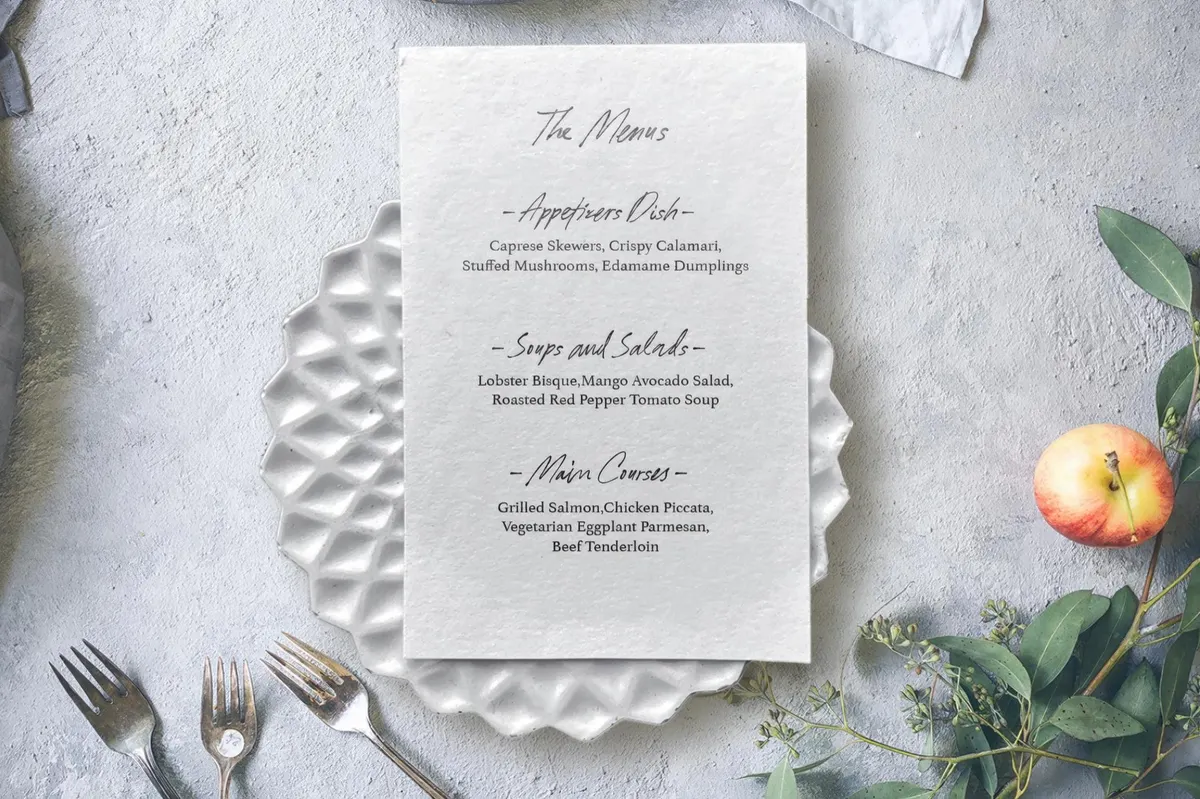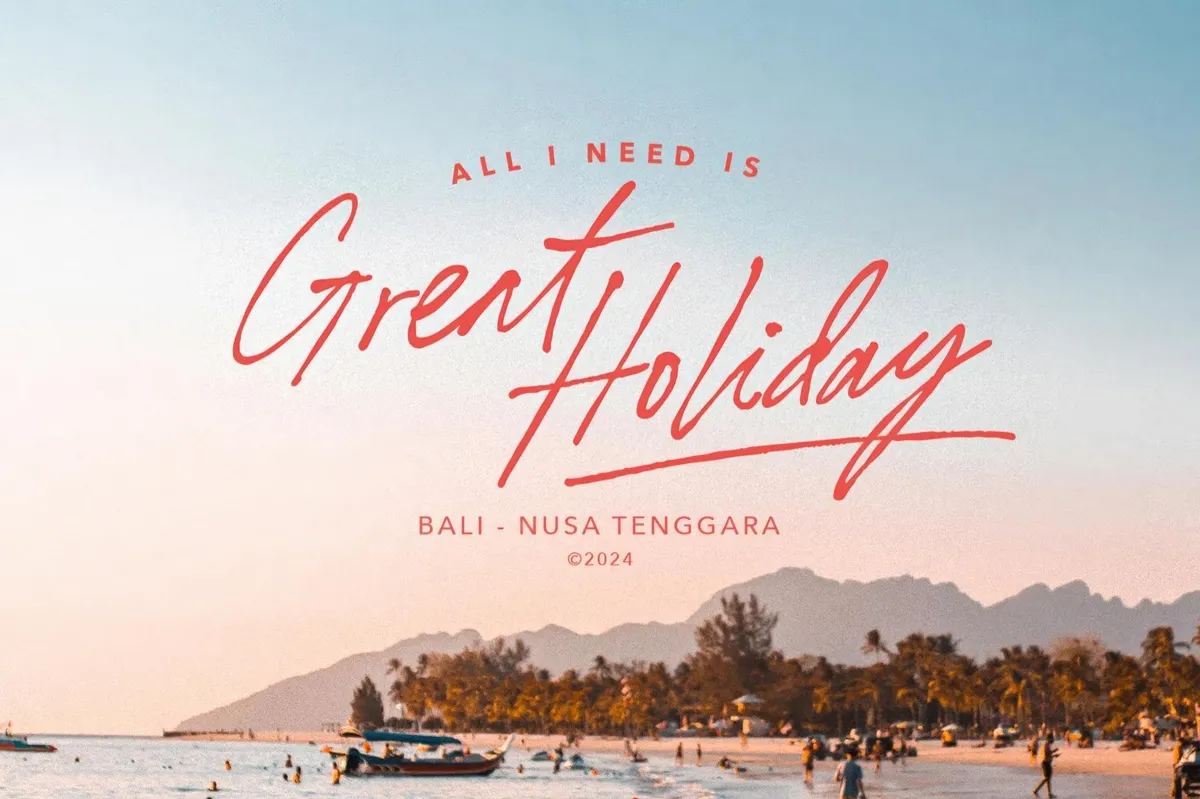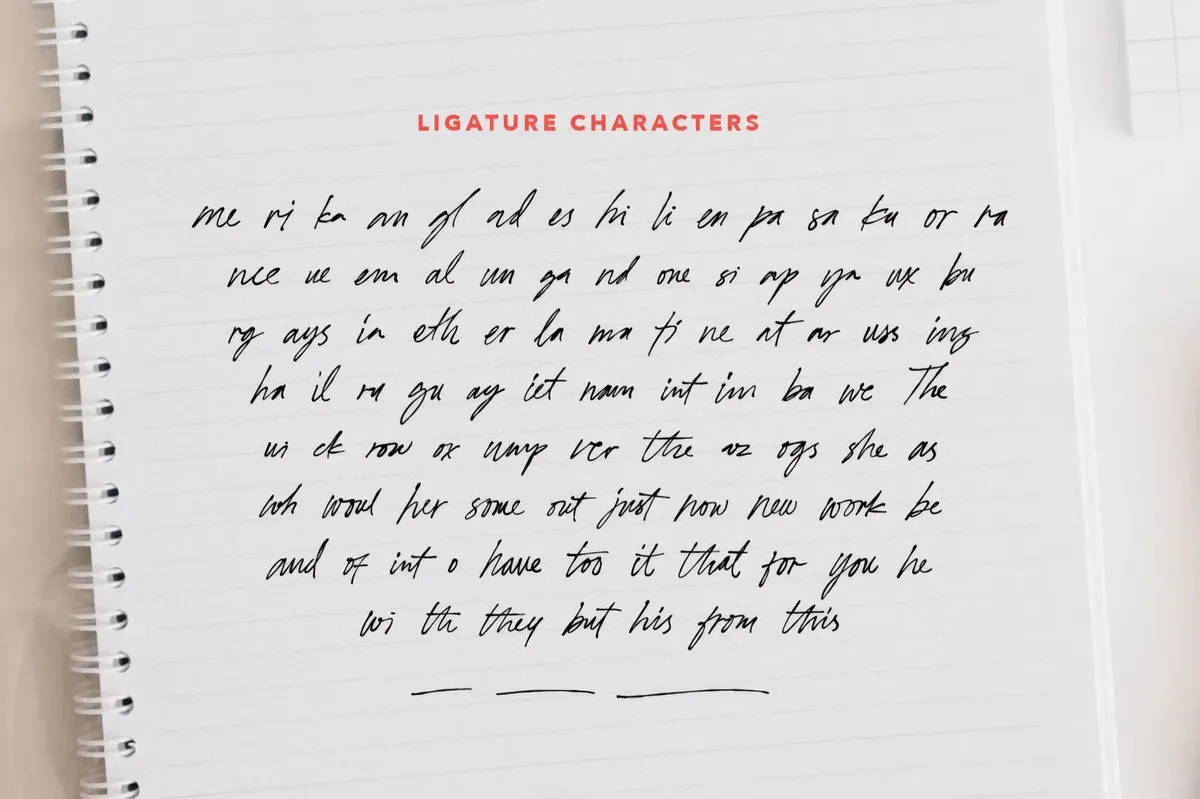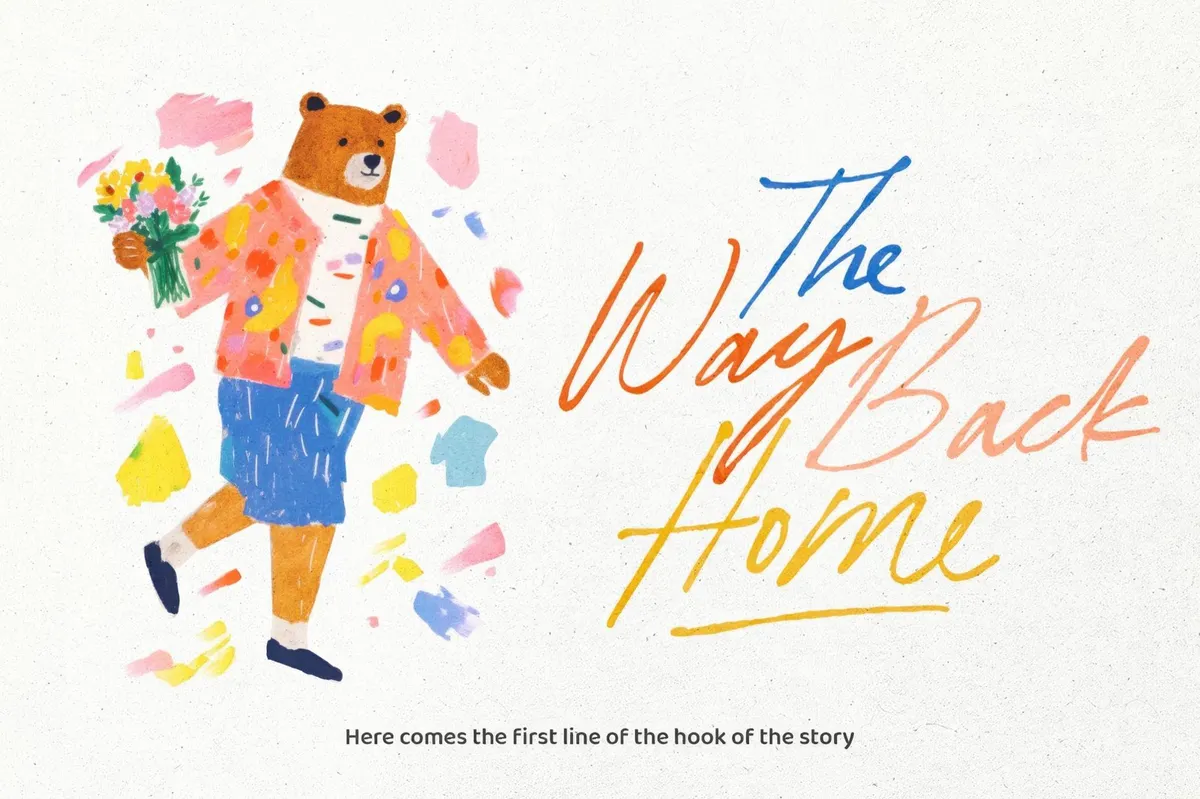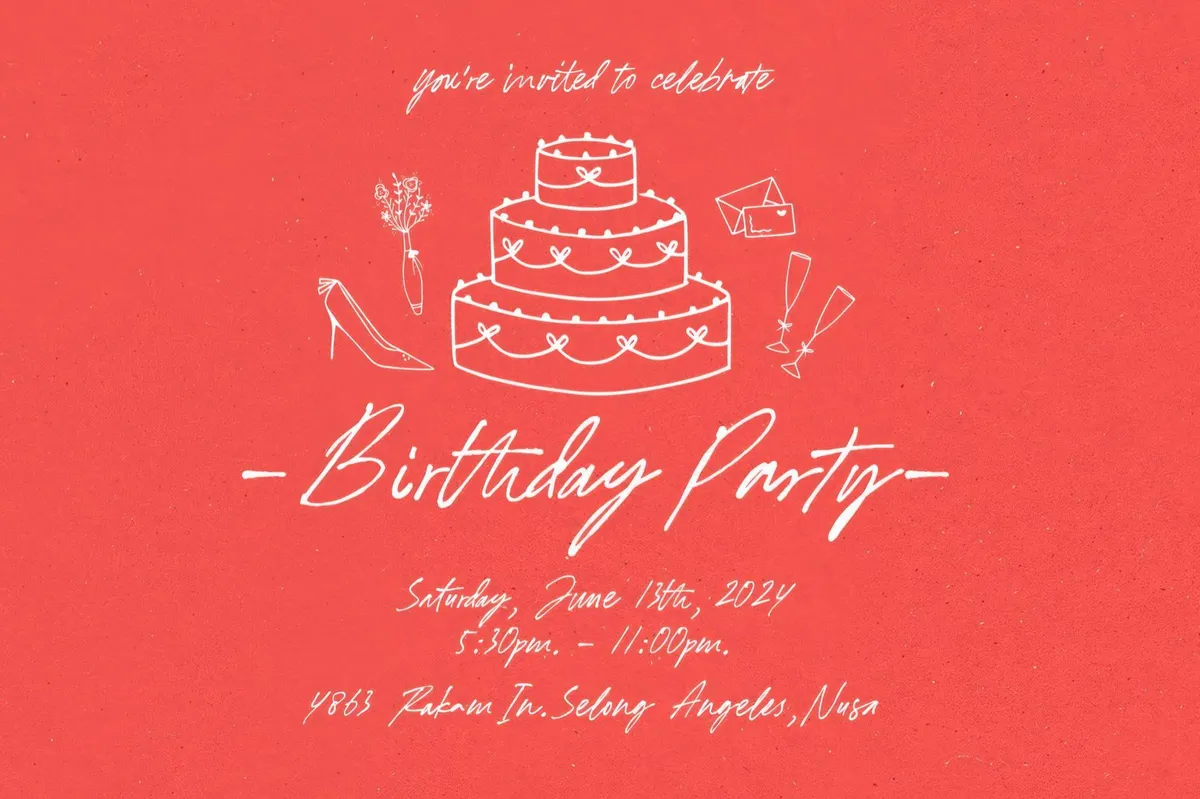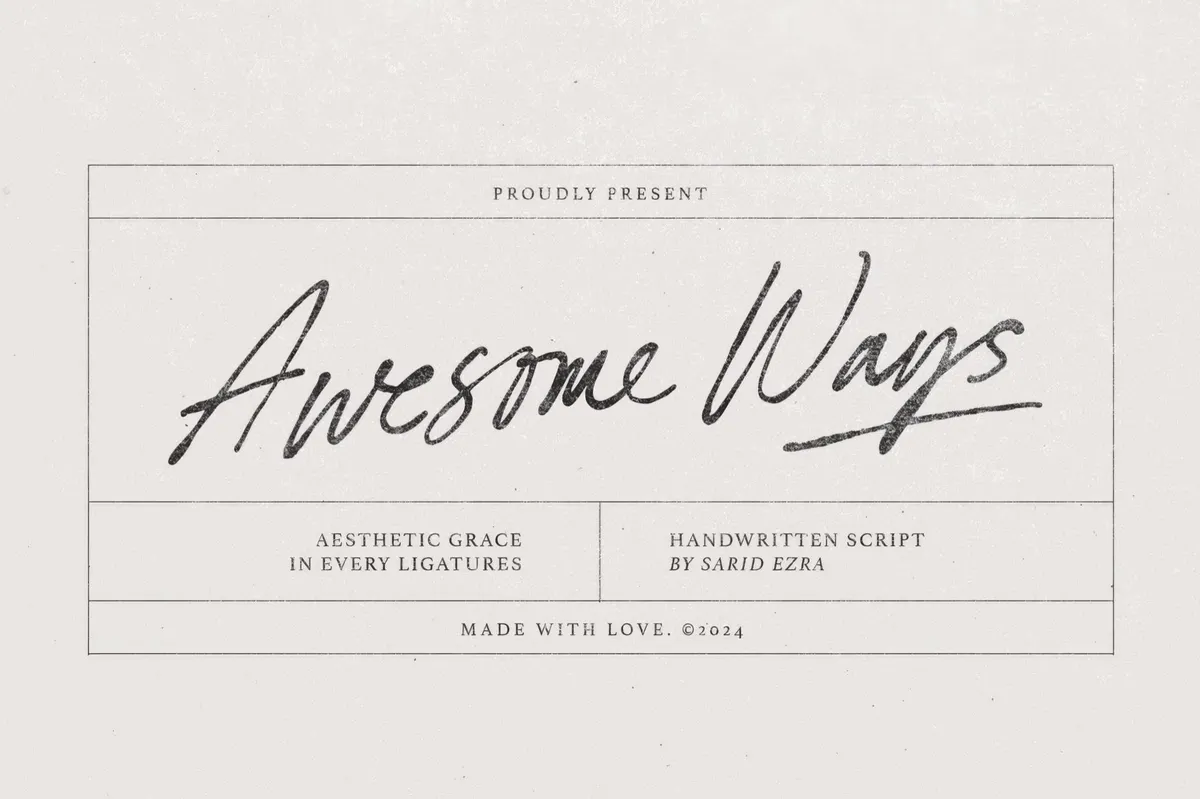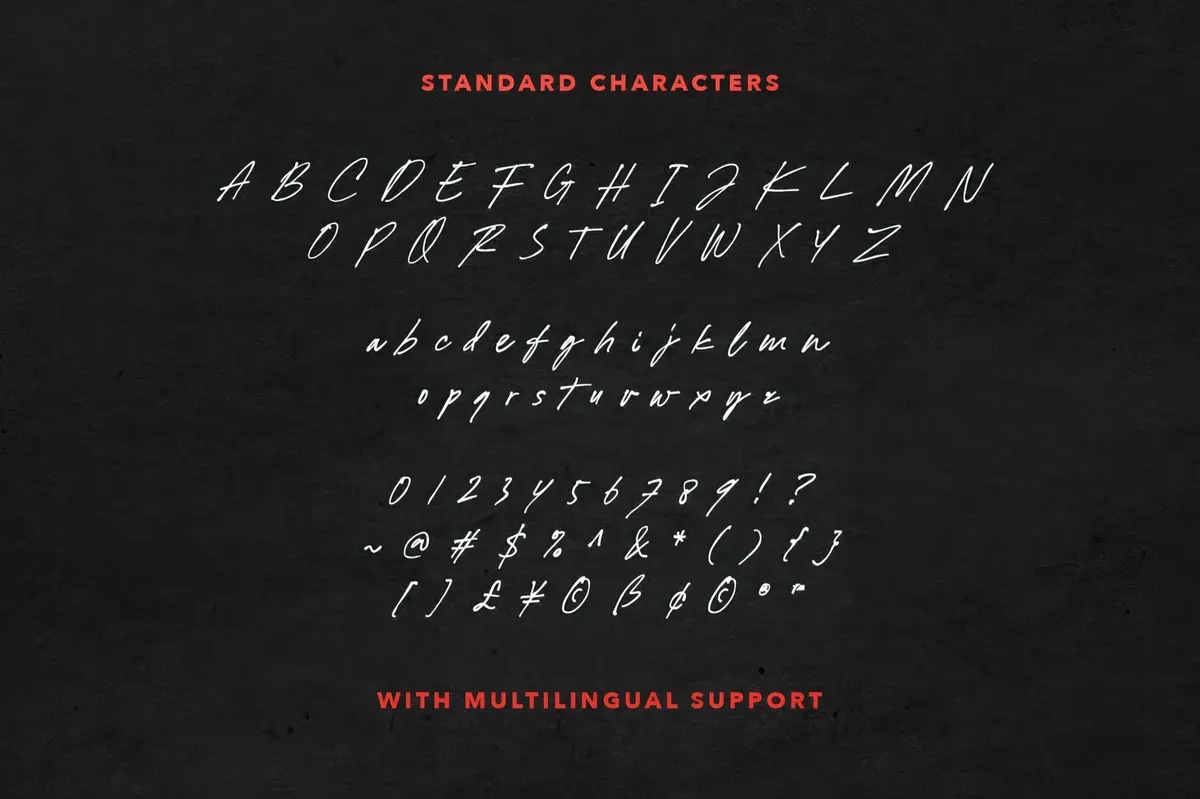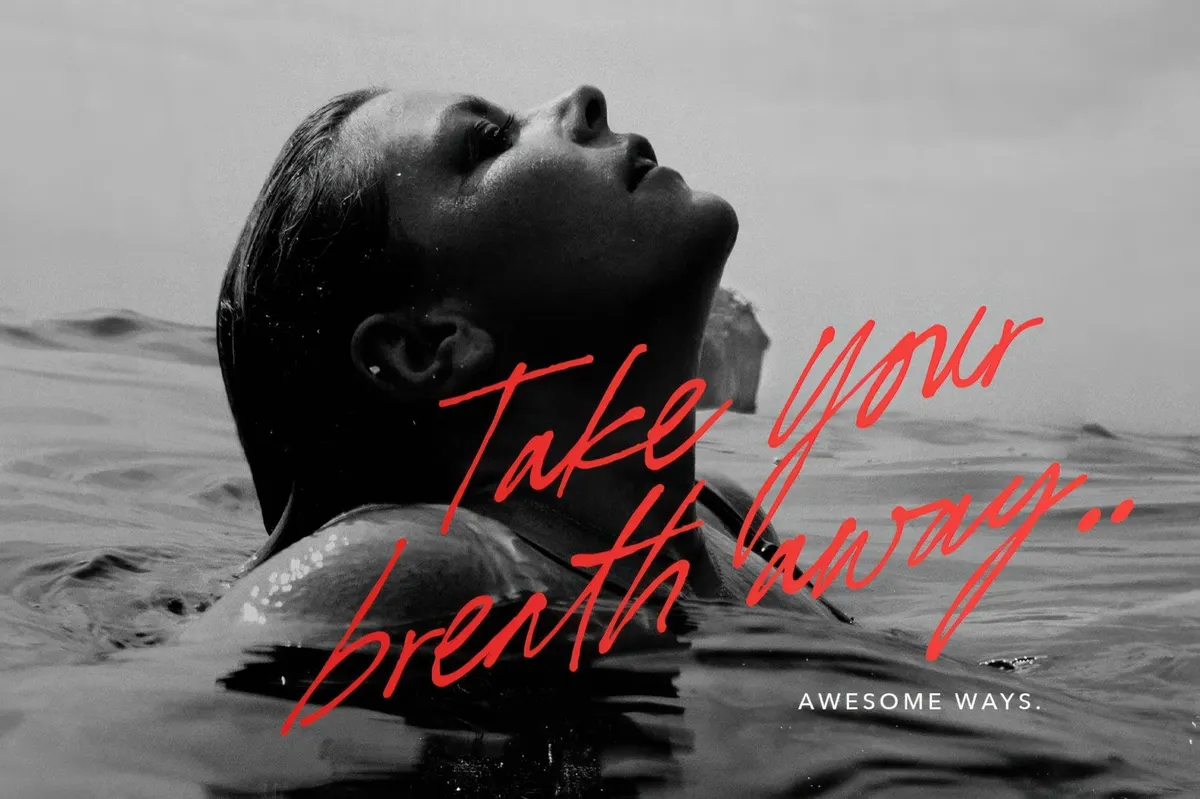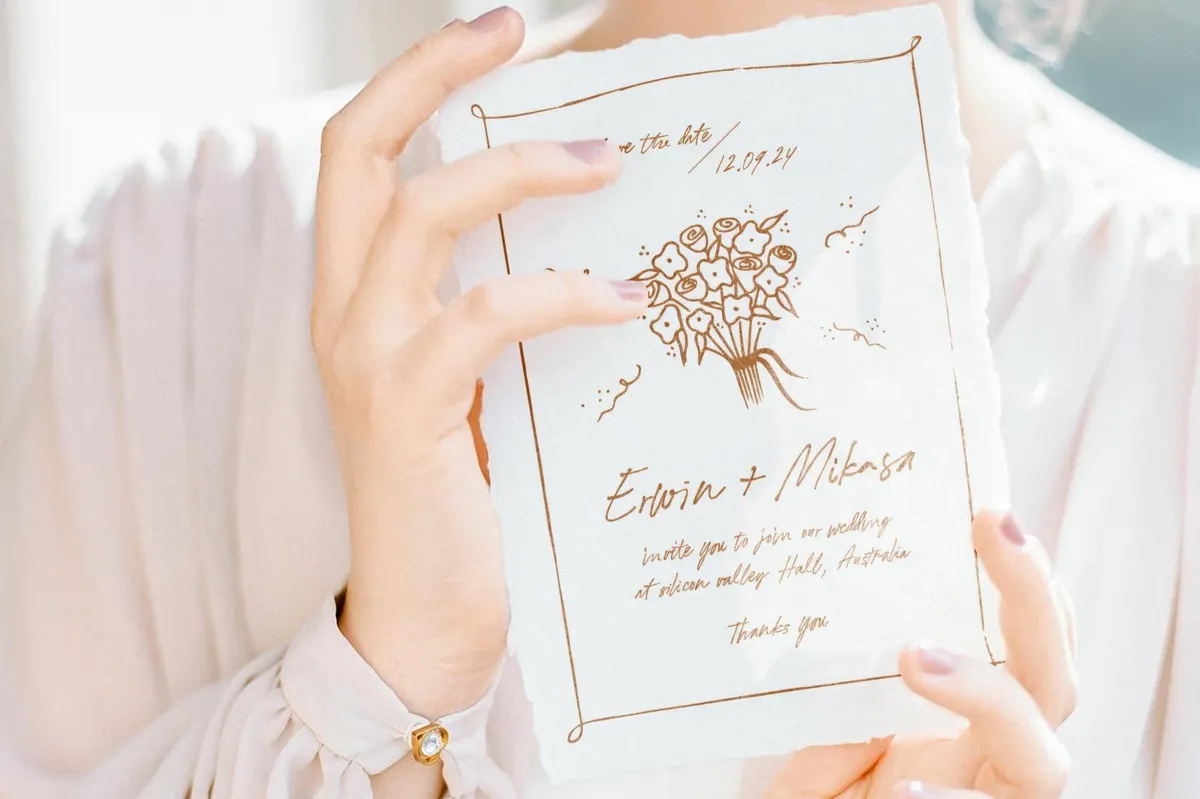
Awesome Ways — Ligature Script
Some fonts try too hard — Awesome Ways just gets it right. This handwritten script has an effortless, organic flow, packed with ligatures that make every word feel naturally written rather than typed. The balanced letterforms work beautifully for refined logos, wedding invitations, or handwritten quotes, this font adds warmth and authenticity to any project. The set includes uppercase and lowercase letters, numerals, punctuation, and full multilingual support, so your creativity isn't limited by language.